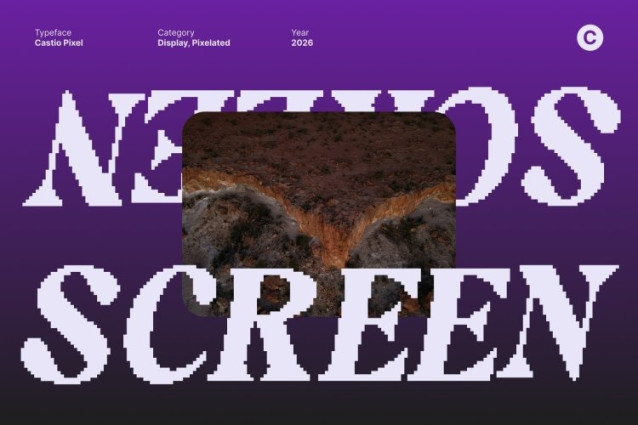
Castio Pixel Font
Castio Pixel Font This is a bold serif font that blends retro elegance with a distinctive pixel character. Built on thick, confident strokes and classic proportions, the pixel detailing introduces a nostalgic digital texture that enhances its luxurious and heritage-inspired appeal.
Retro Elegance with Digital Detail
The refined serif structure of this font delivers timeless sophistication, while the pixel influence adds a unique visual twist reminiscent of vintage digital displays. This balance creates a bold yet elegant look that feels both classic and eye-catching.
Perfect for Titles and Premium Branding
This font is ideal for titles, logos, branding, packaging, and editorial headlines that require a strong, classy presence. Its bold weight and pixel-enhanced details ensure high visual impact while maintaining an air of refinement and prestige.
A Luxurious Statement with Nostalgic Charm
With its combination of bold serif elegance, retro soul, and pixel-driven character, this font elevates any design with confidence and nostalgia. It is a powerful choice for projects that seek to express luxury, tradition, and distinctive digital flair.